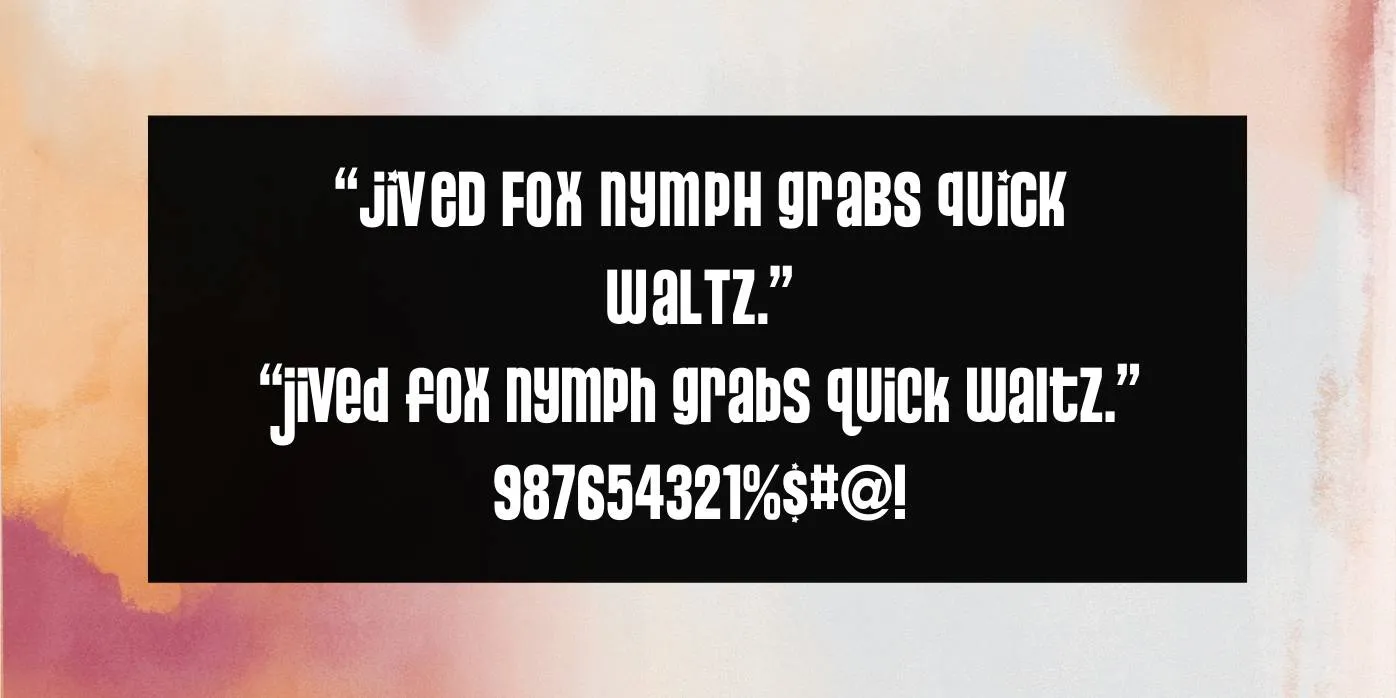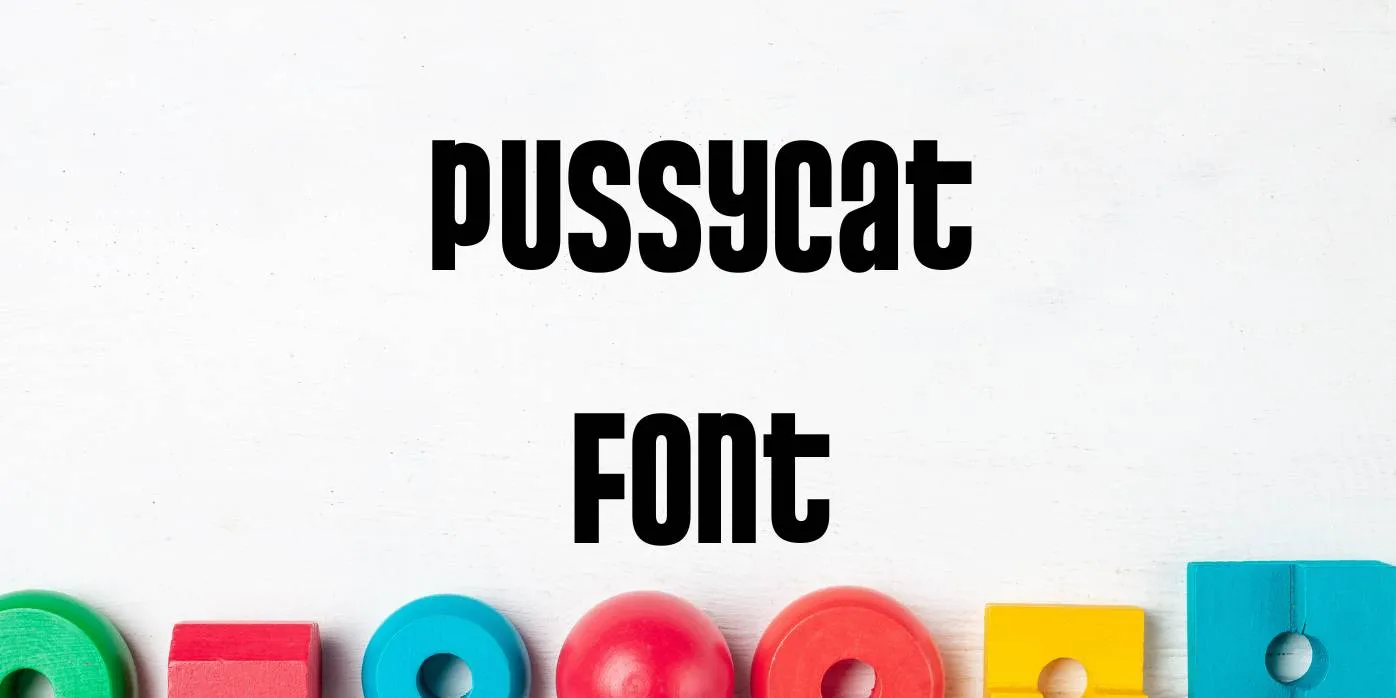
Pussycat Font
Pussycat Font is a fancy type of font. Fontalicious is the designer of this typeface. There are 240 fantastic glyphs for this texture. The characters of this typeface are bold, classic, and highly readable.